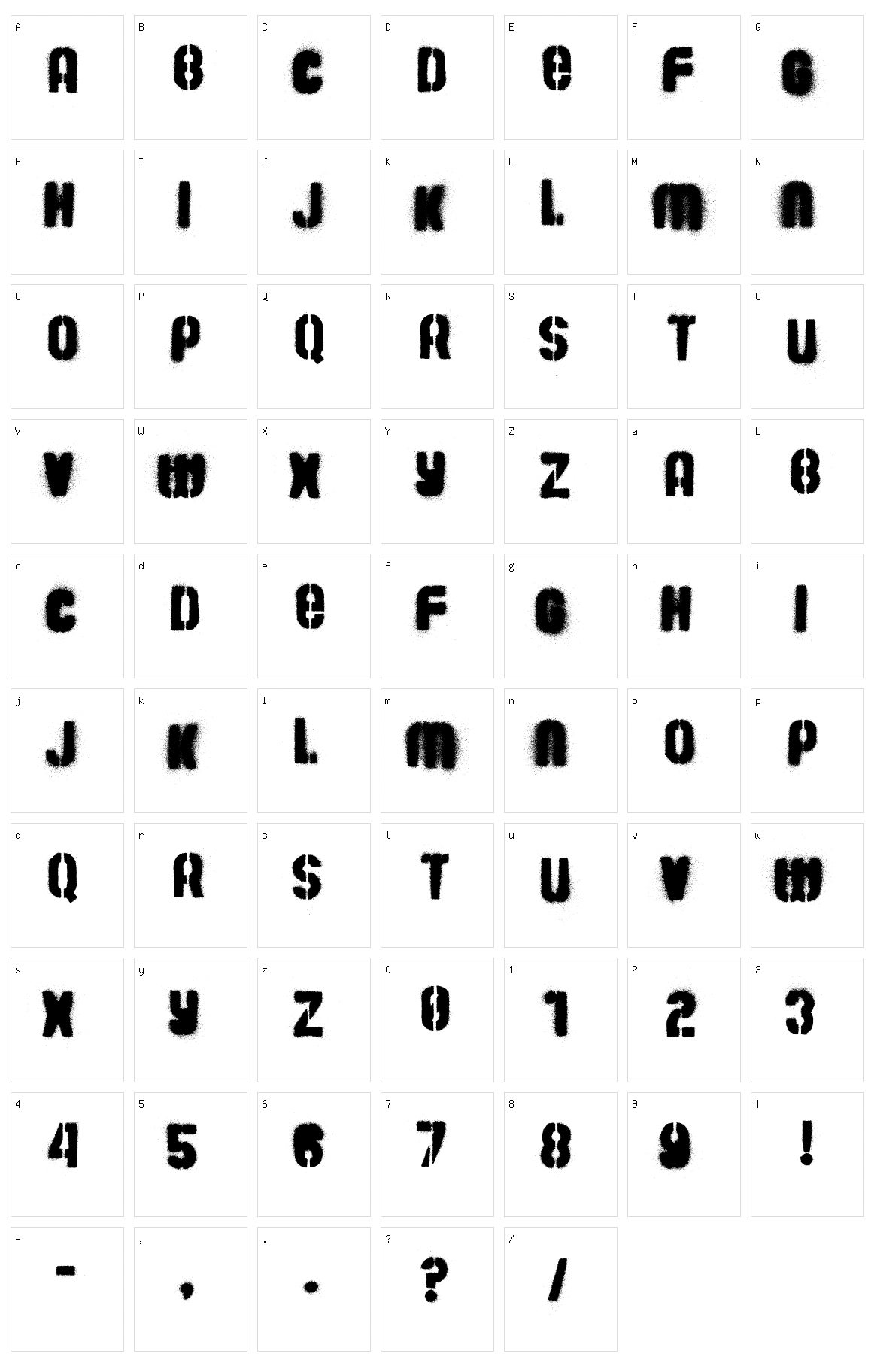
The free font Barrio 30 is carefully designed by StereoType, showcasing a thoughtful balance of creativity and usability and falls under the Stencil font style. When you download the ZIP file, it contains only 649.51 KB of font files, making it lightweight and quick to download. Please review the license details below to understand permitted usage and distribution rights. If license information is not available, we recommend using this font for personal projects only or contacting the author directly for commercial usage permissions.
"Barrio 30" Font